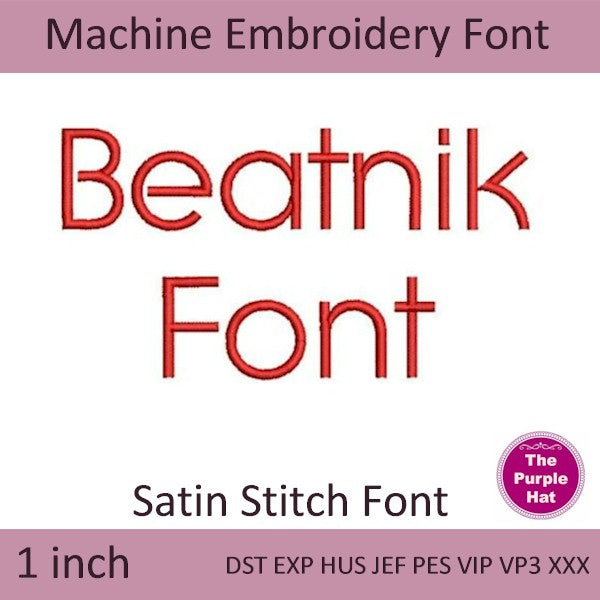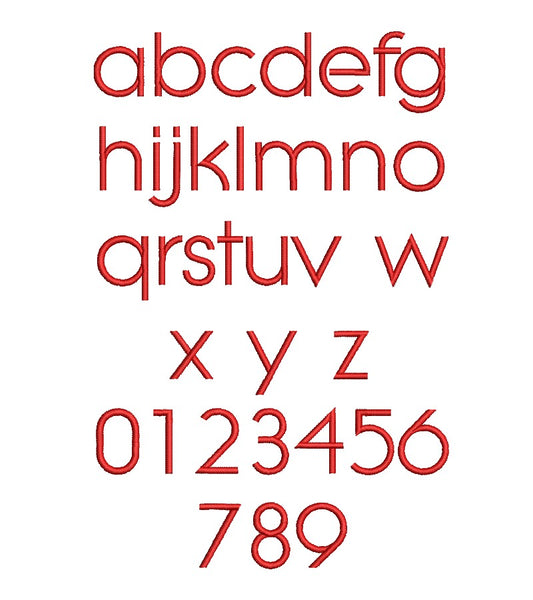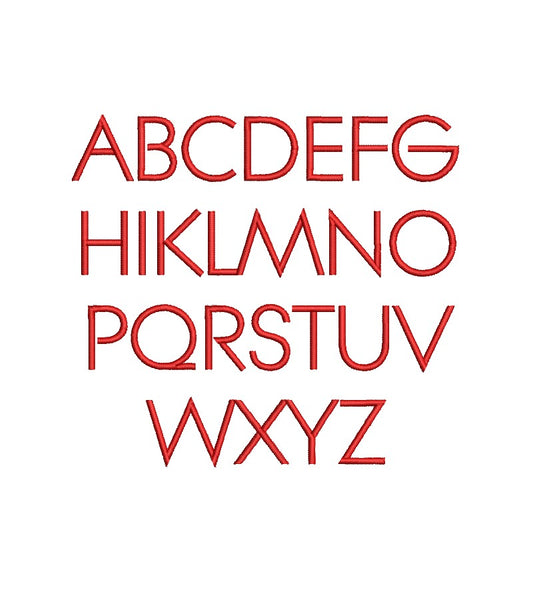
Beatnik machine embroidery font 1 inch
🎶 Beatnik Satin Stitch Font
A fun and modern font made just for your embroidery machine!
🧵 Name: Beatnik
🔠 Uppercase Letters: A-Z
🔡 Lowercase Letters: a-z
🔢 Numbers: 0-9
✨ Style: Modern satin stitch
📐 Size: 1 inch (approximate)
🌟 Add a cool and creative vibe to your stitching with the Beatnik font!